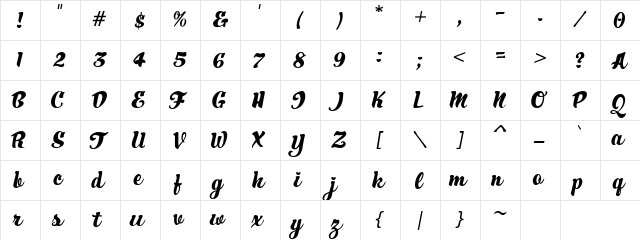
CK Puppy Love Regular
Design Context for CK Puppy Love Typeface
CK Puppy Love is a composed and adaptable typeface that performs quietly and consistently across a wide range of design contexts.